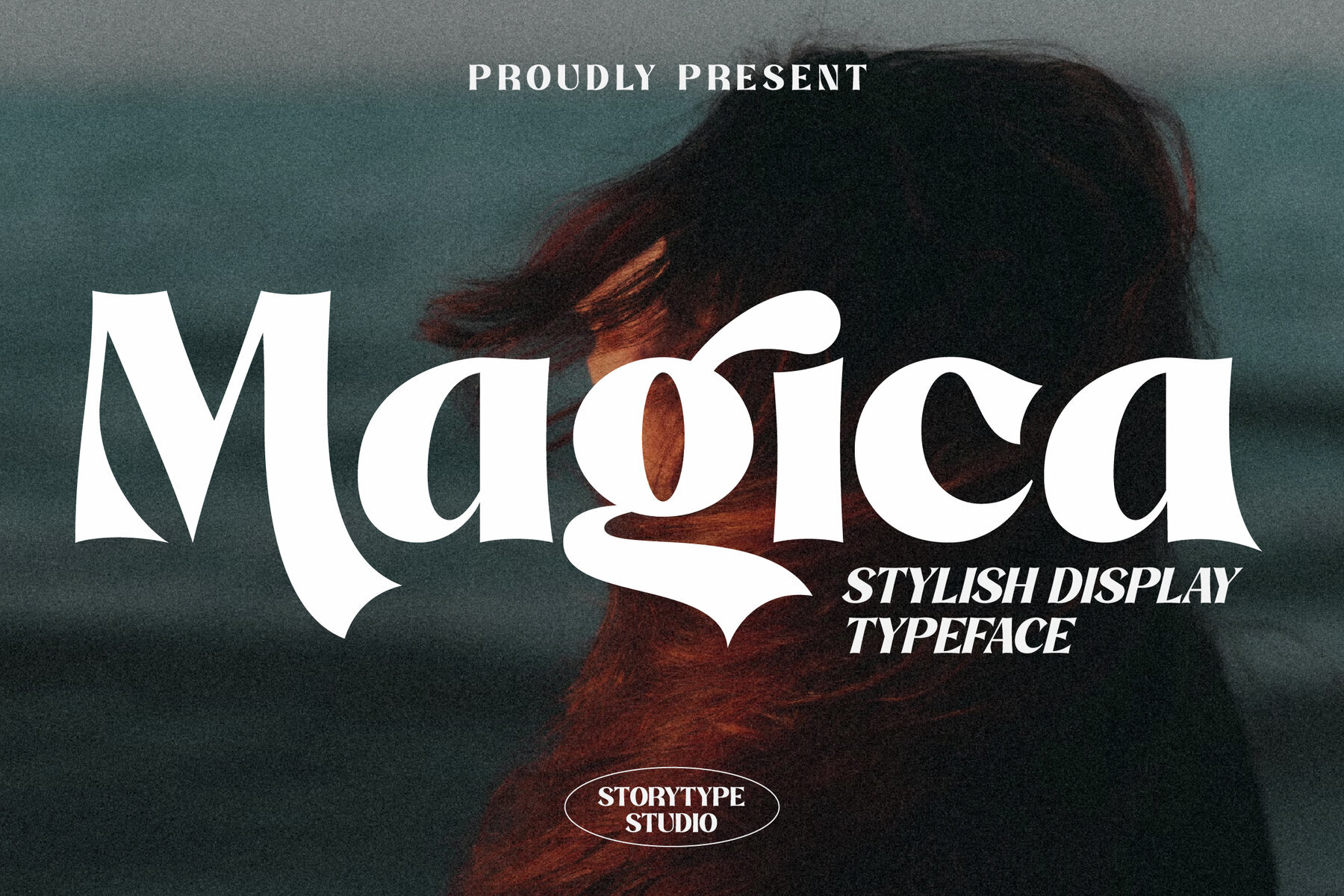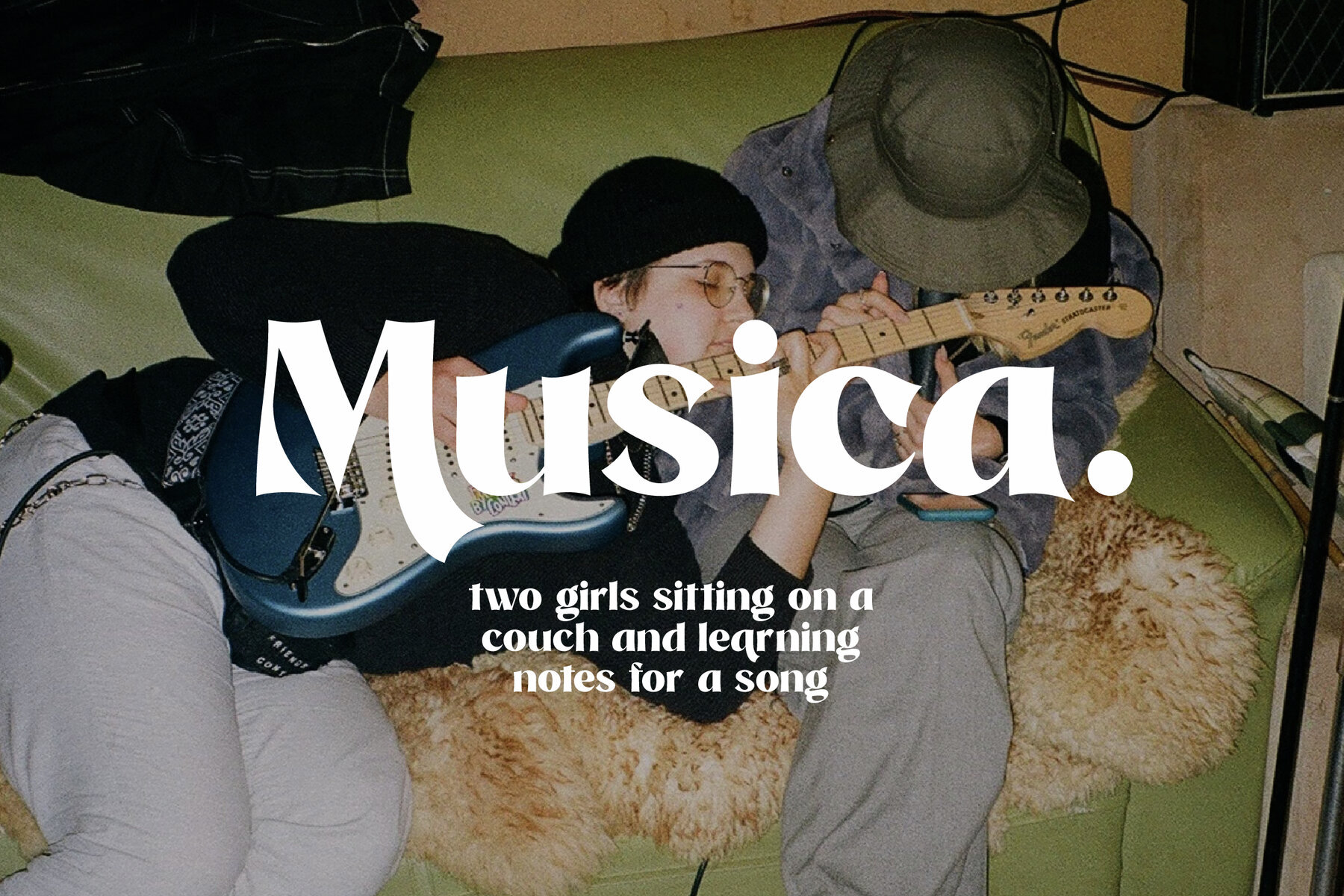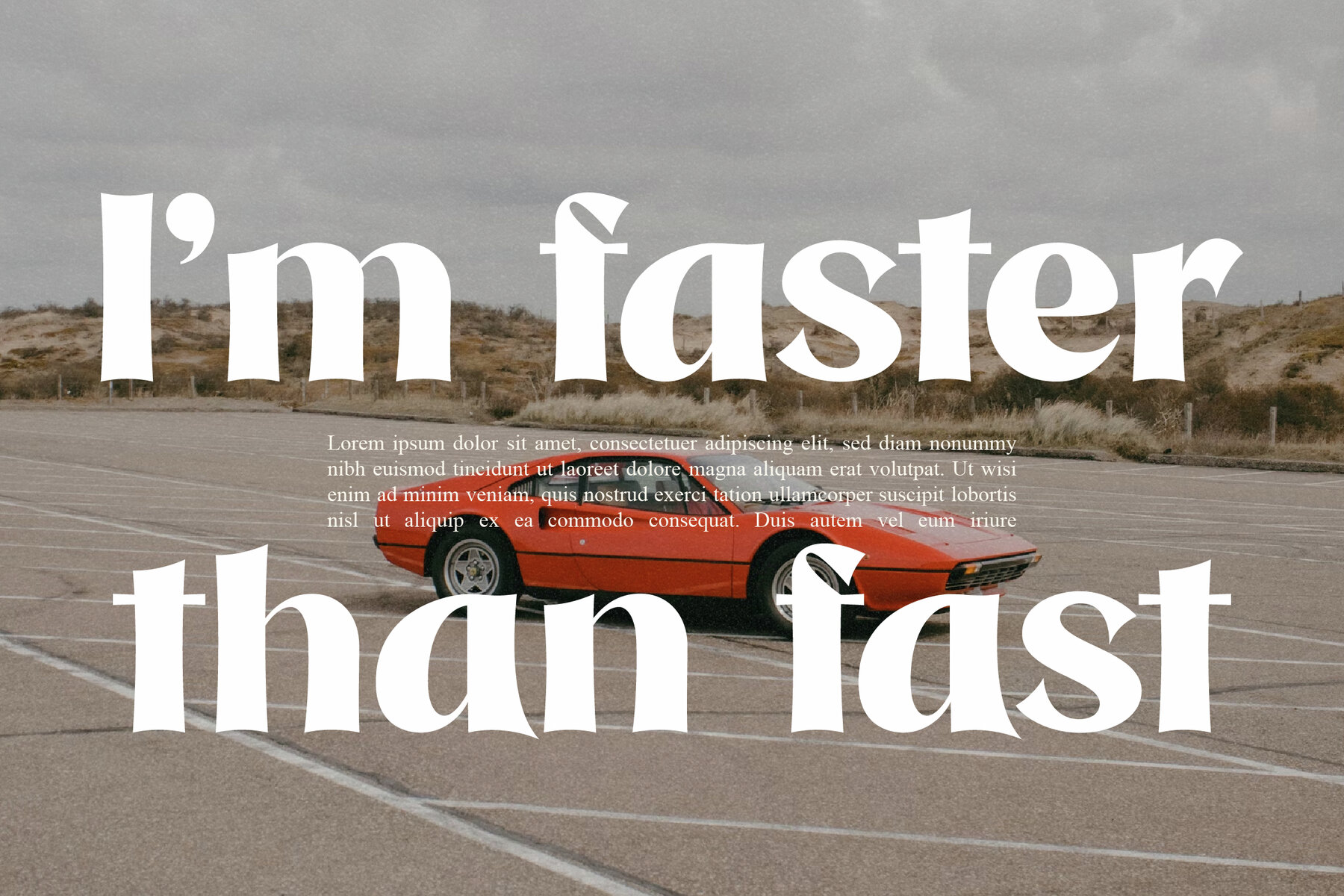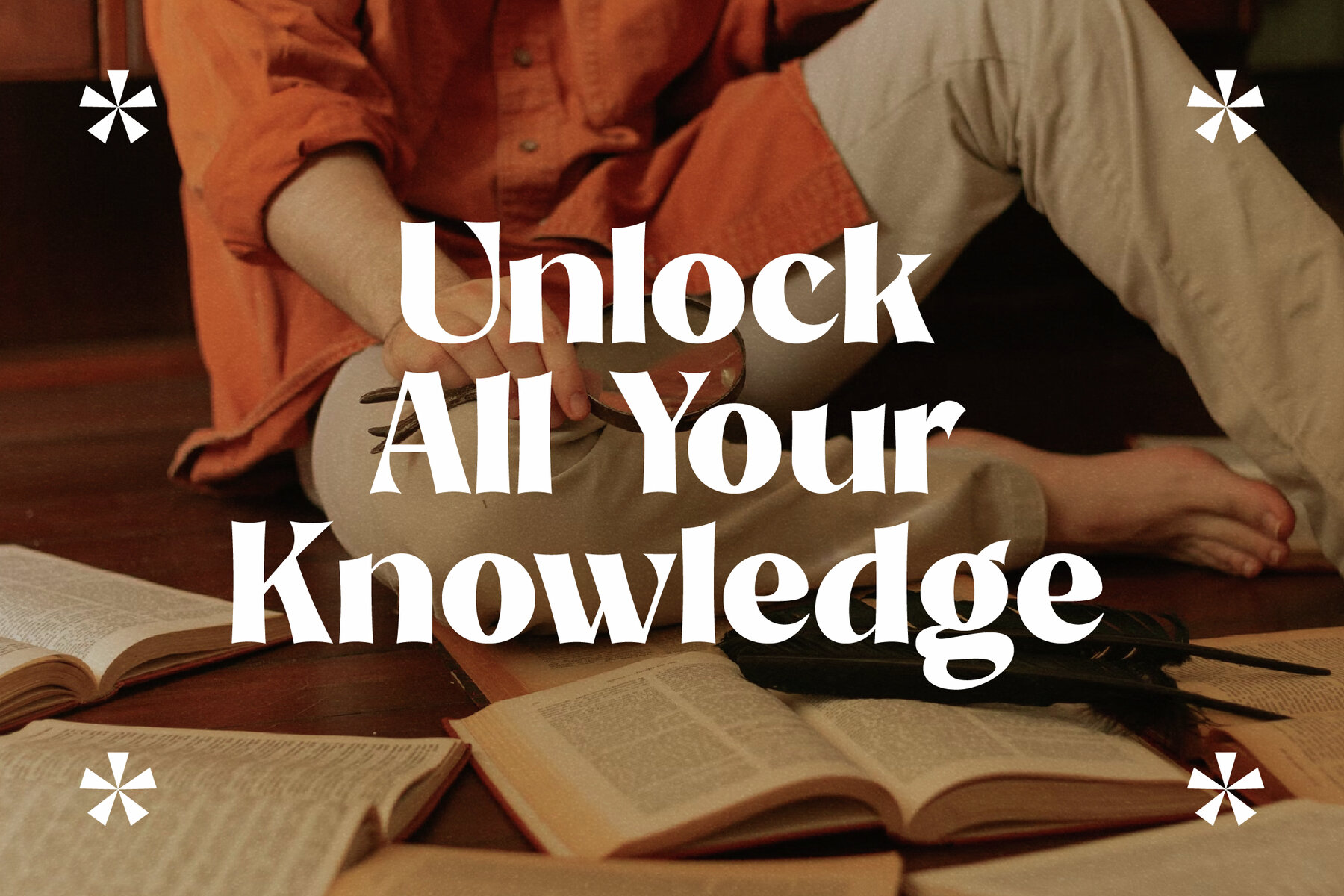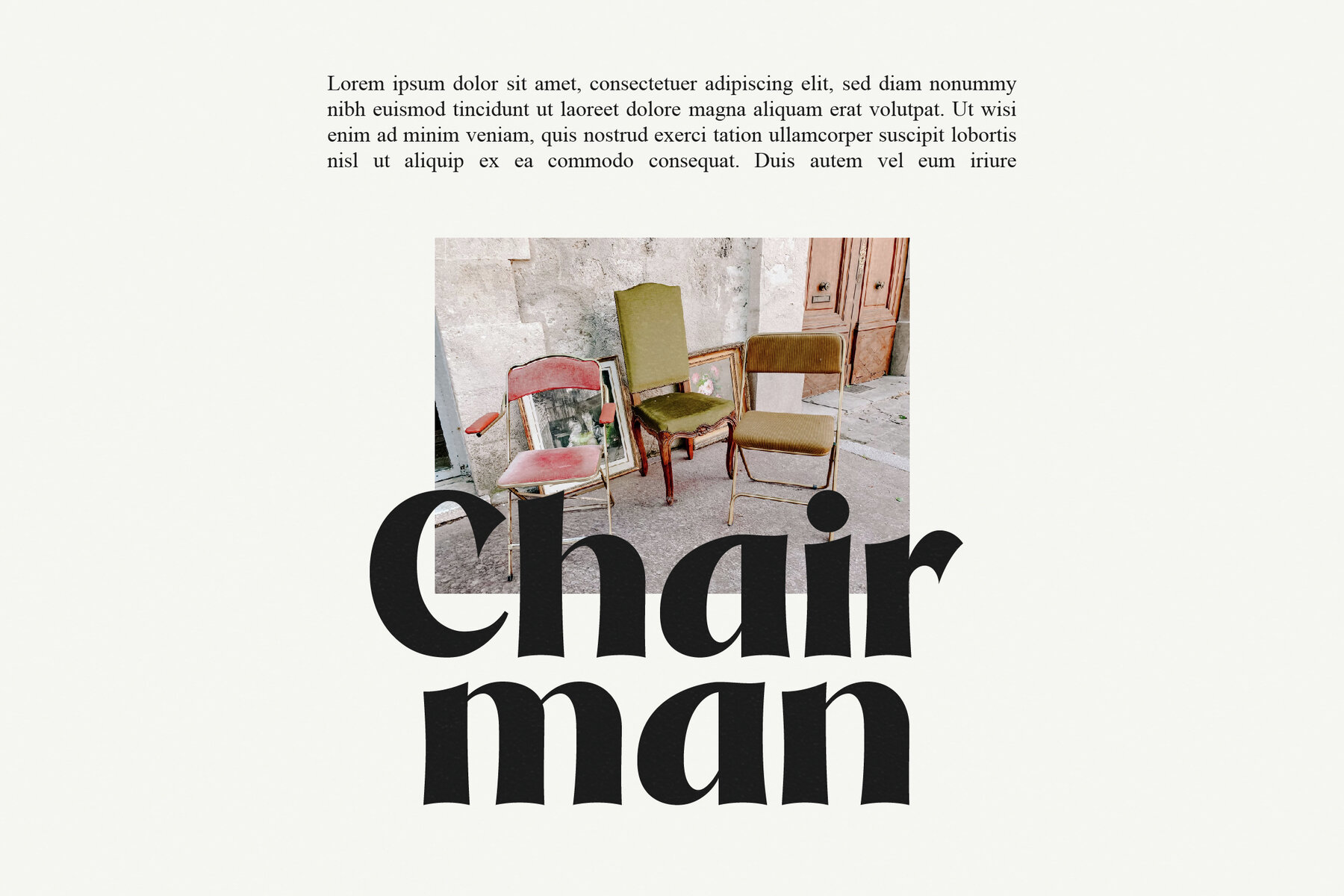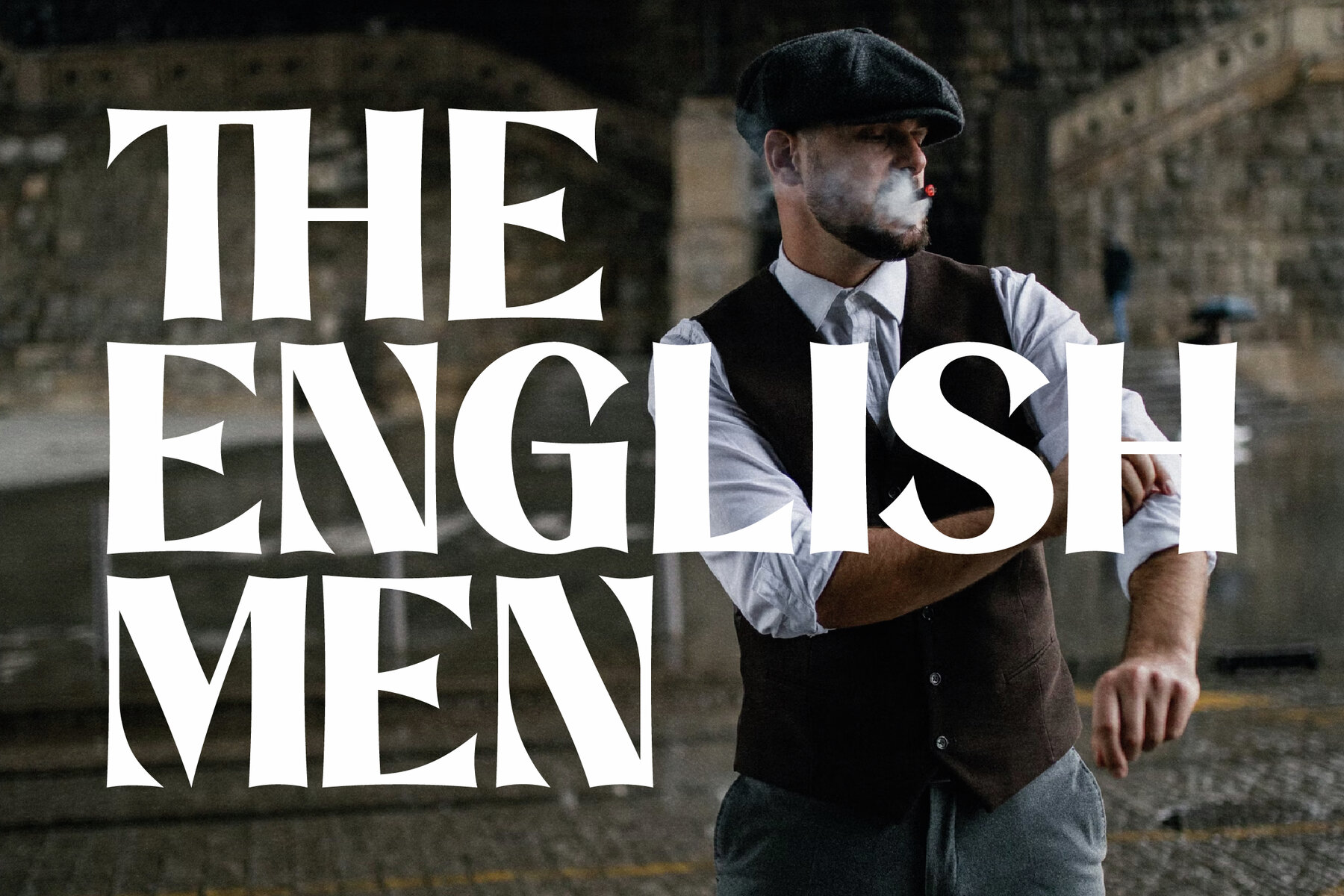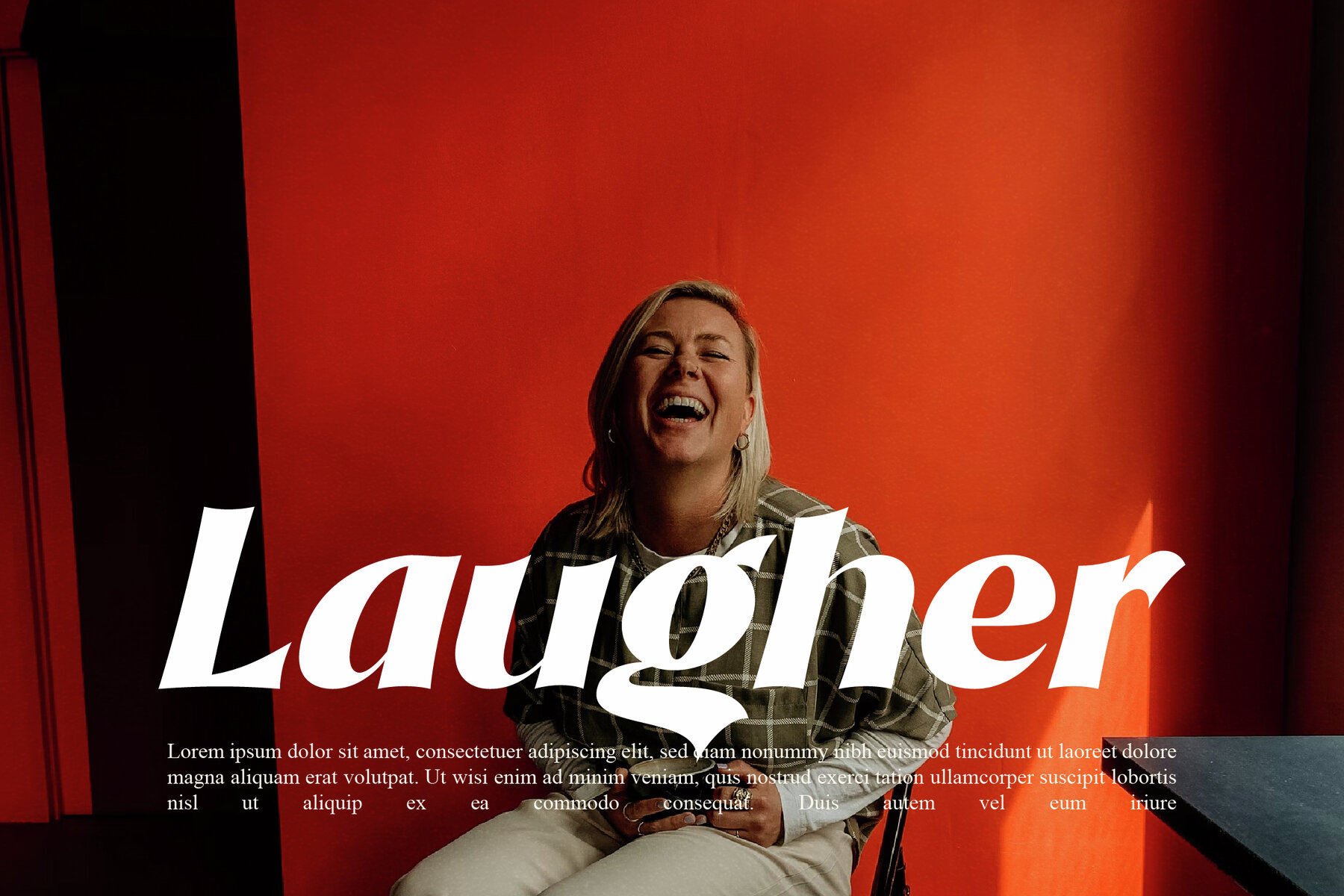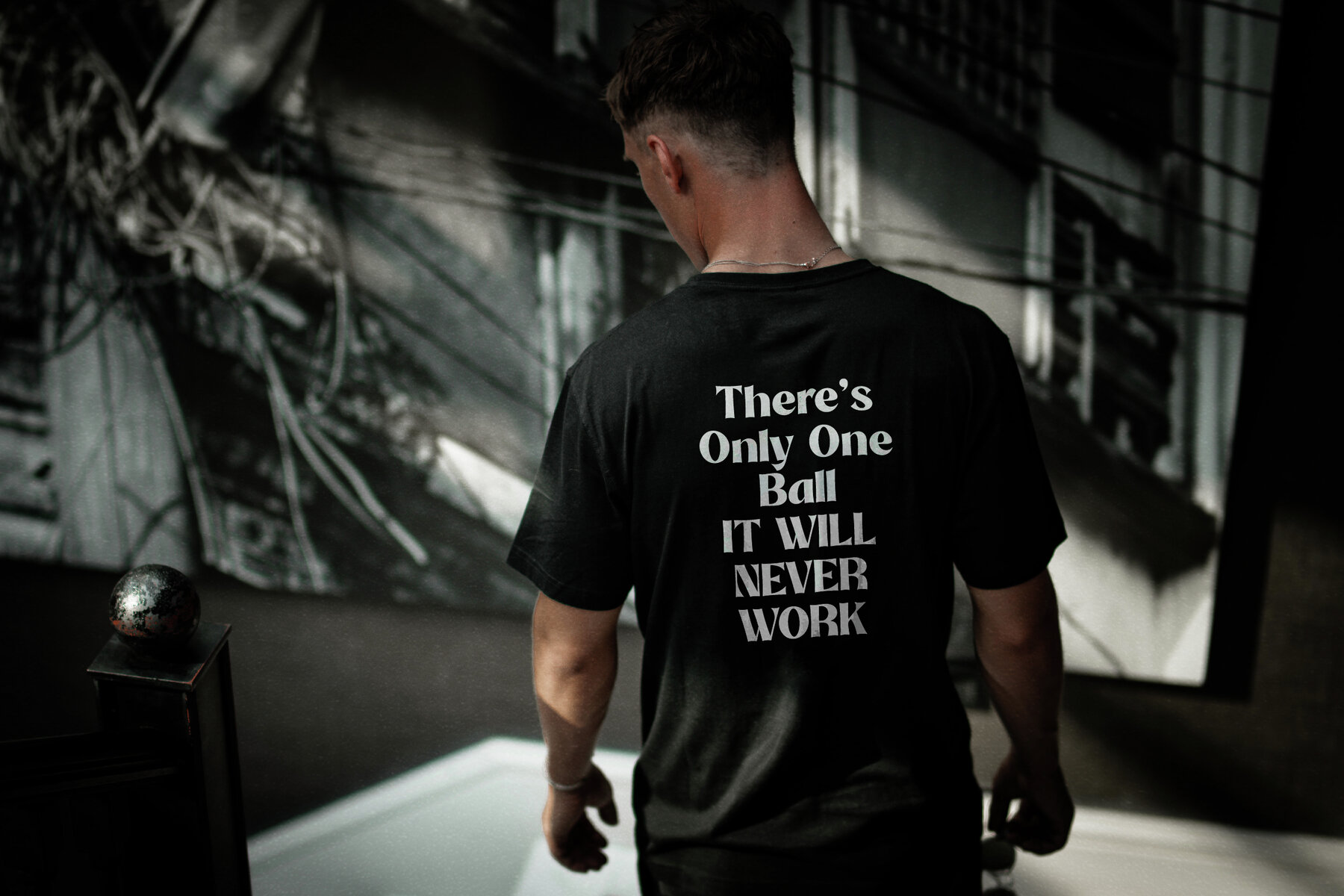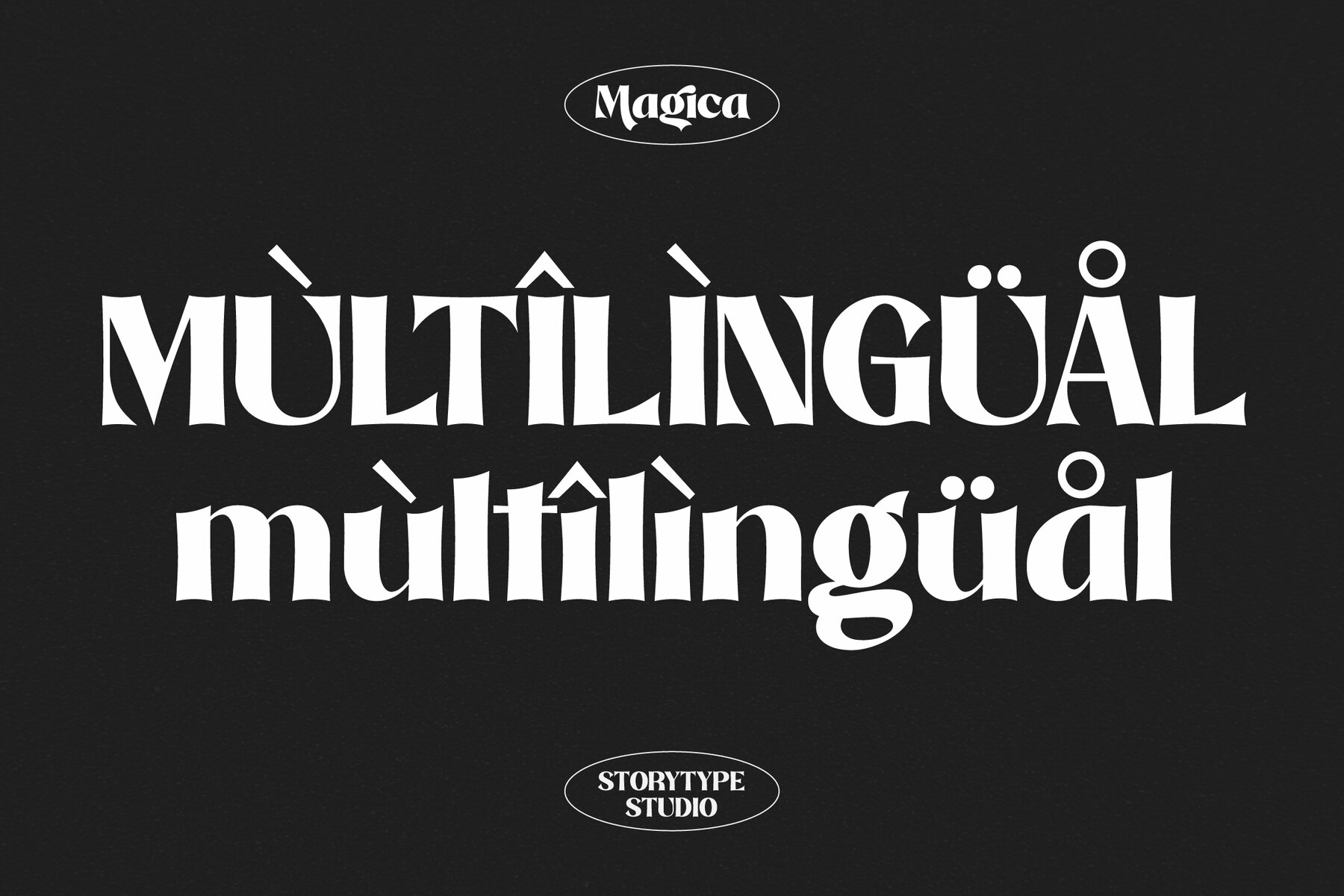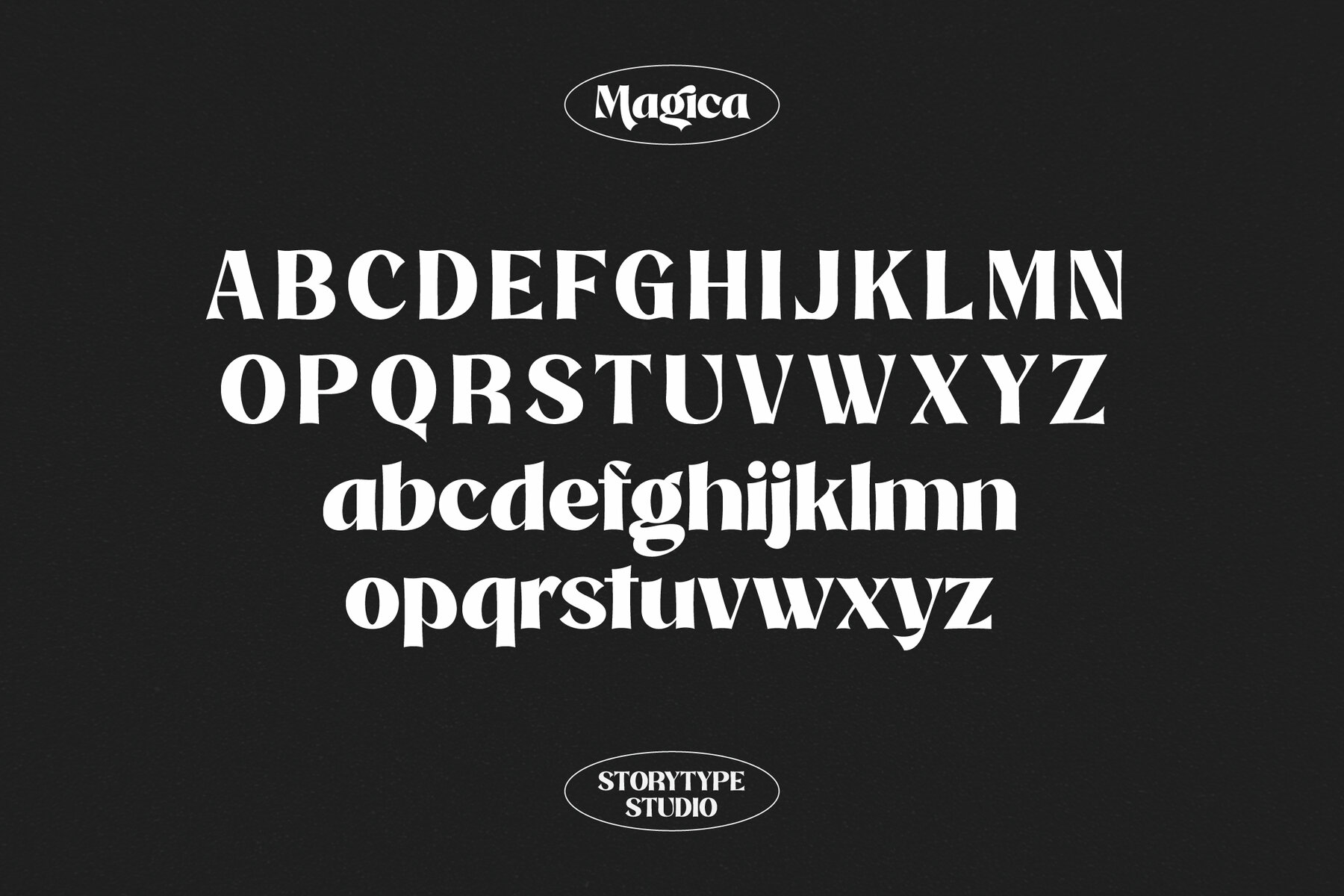
Magica Font
The Magica typeface from Storytype Studio brings a harmonious blend of classic serif style and contemporary flair. Designed to add a touch of elegance and luxury, it is an exceptional choice for logos, book or movie titles, fashion brands, magazines, clothing lines, and inspirational quotes.Magica Typeface: Where Classic Meets Modern
Features of Magica Typeface